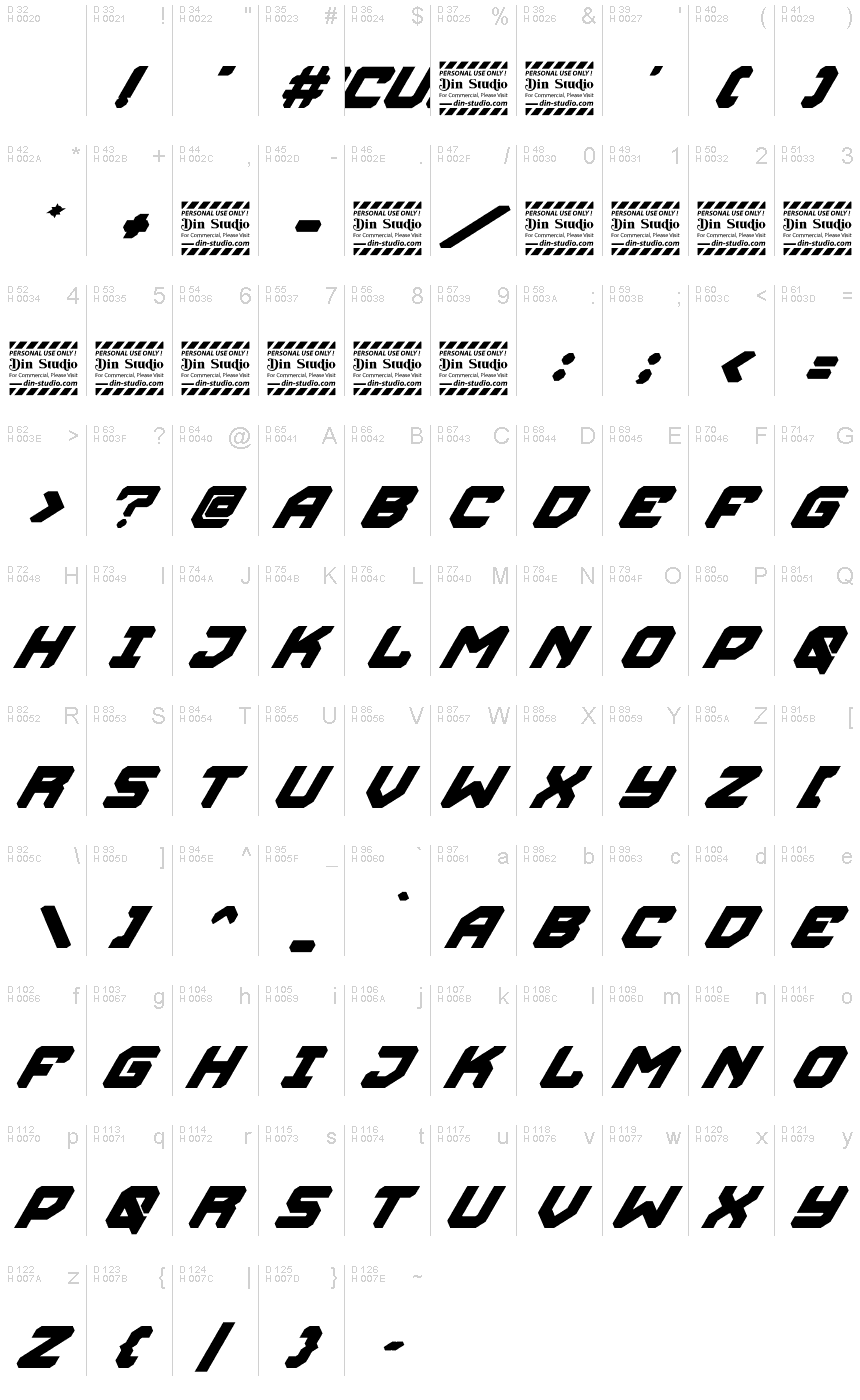
Circuity Personal Use
Circuity, conceived by the creative minds at Din Studio, stands as a testament to the seamless blend of modernity and functionality. This display font exudes a techno style that is as compelling as it is distinctive, with bold strokes and a semi-expanded width that commands attention on any medium.
The aesthetic appeal of Circuity is undeniable. Its sharp lines and geometric precision evoke a sense of futuristic sophistication, making it an ideal choice for projects that aim to convey innovation and cutting-edge design. The font's bold weight ensures high readability, which is vital for impactful headlines and eye-catching logos.
Visually, Circuity's characters are crafted with meticulous detail that reflects the essence of digital age artistry. The techno style makes it especially suitable for themes related to technology, gaming, science fiction, or any creative endeavor seeking a modern touch.
Whether applied to digital interfaces or printed materials, Circuity has the potential to elevate your project's visual narrative. Its unique character shapes provide an immersive experience that can help your work stand out in today's visually competitive environment. Choose Circuity when your design requires a font not just for reading but for making a powerful statement.